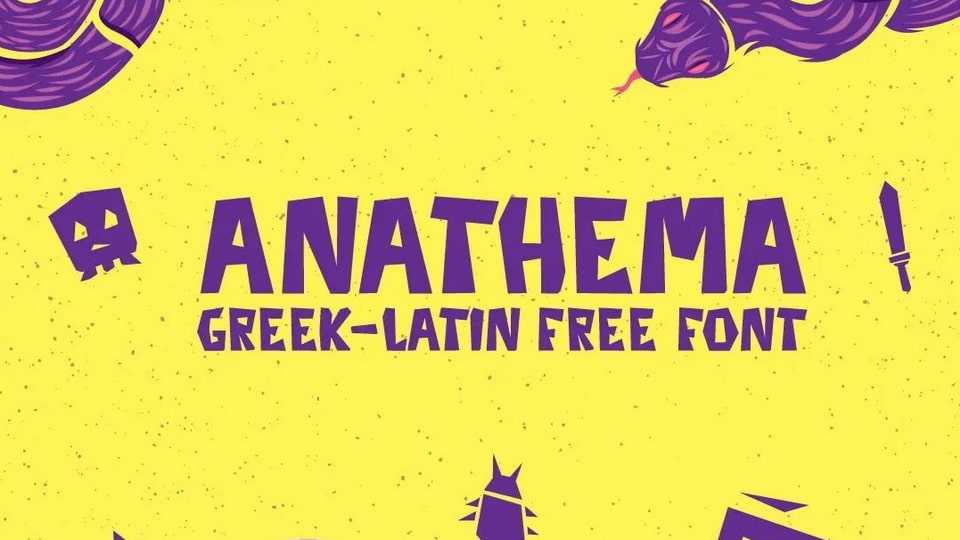
Download Anathema font, a striking display typeface that features Greek and Latin uppercase letters. With its strong personality Anathema font is perfect for titles, branding, posters or anything where a rustic look can be adapted.